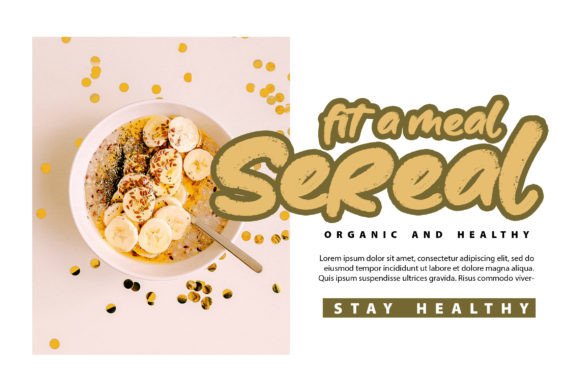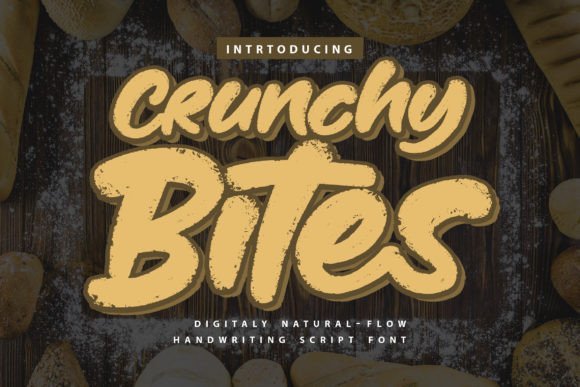
Introduction to Crunchy Bites Font
Crunchy Bites is a bold handwritten font with a calligraphy style.
It will look so beautiful on invitations, greeting cards, branding materials, business cards, quotes, posters, and more .
Why Choose Crunchy Bites Font?